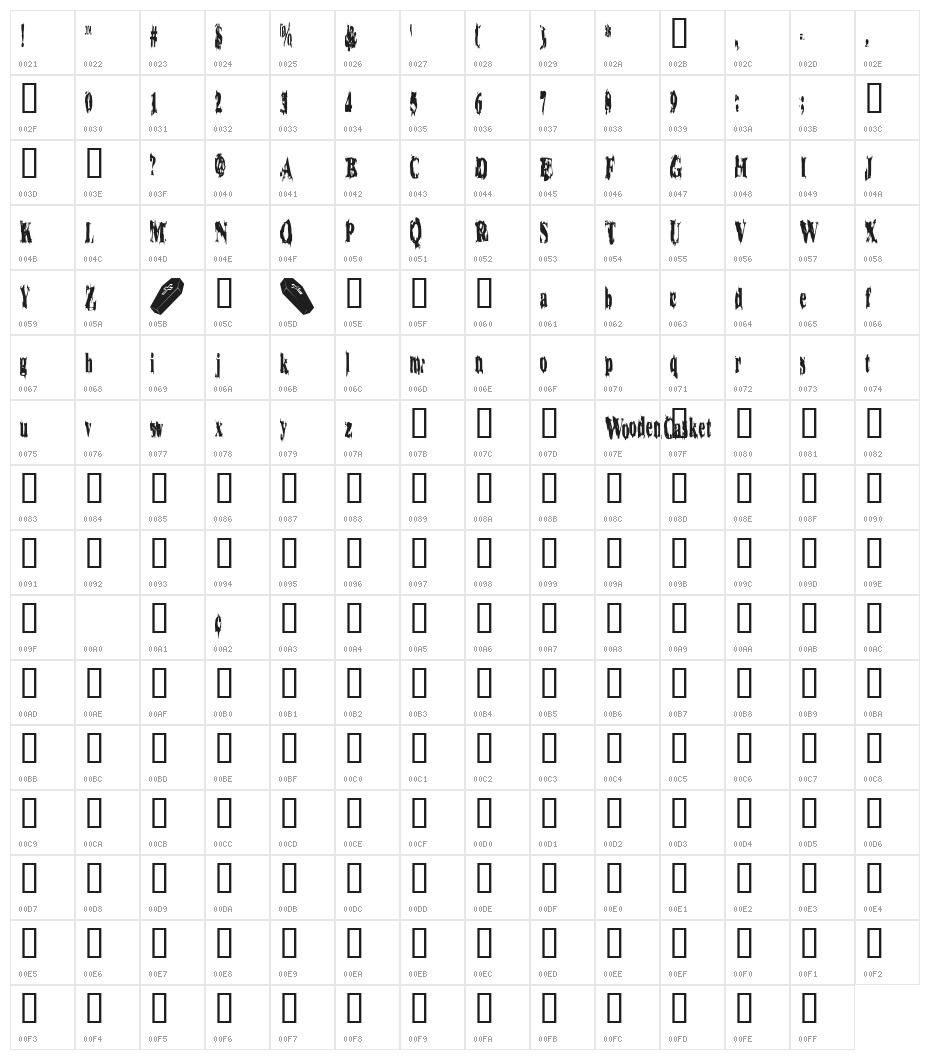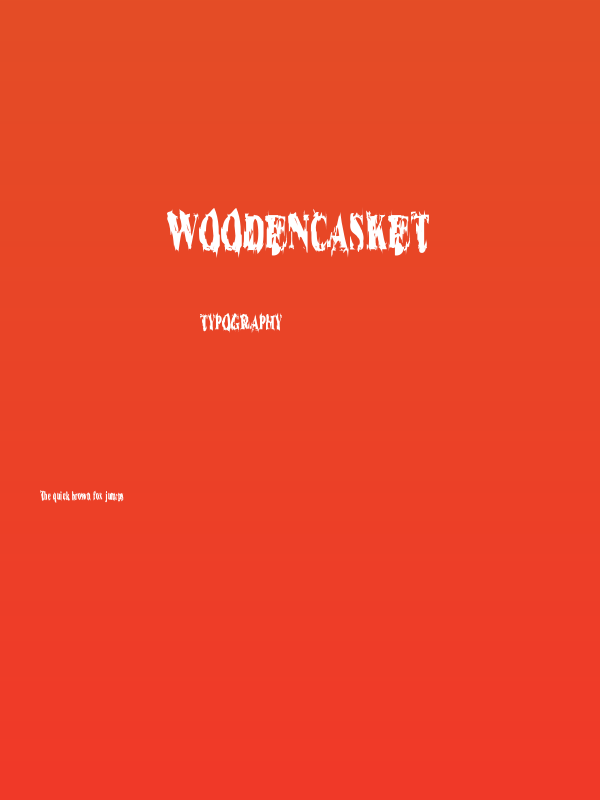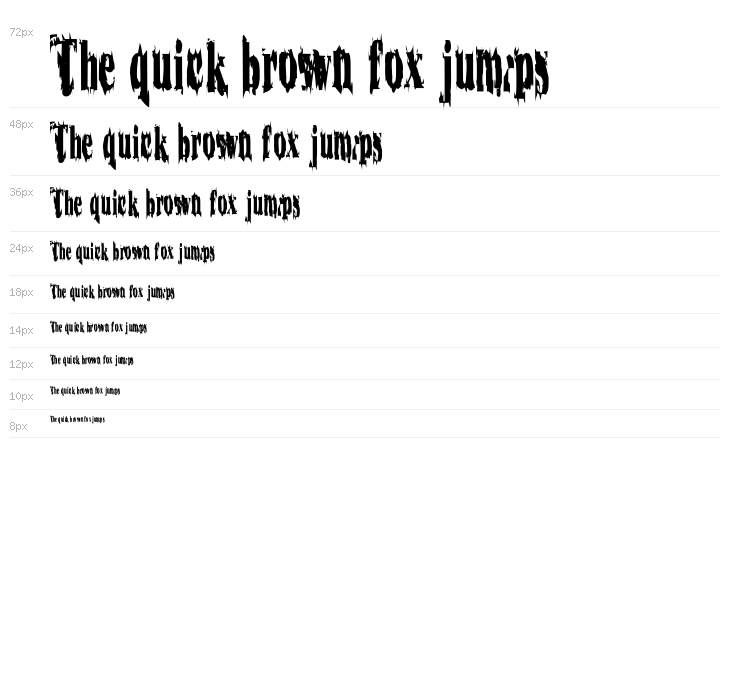
WoodenCasket Font
WoodenCasket Description
This font features a highly decorative and distressed style, reminiscent of jagged wood or thorny vines. The characters are bold and have an irregular, edgy appearance, with sharp angles and uneven edges that create a sense of chaos and intensity. The uppercase and lowercase letters maintain a consistent theme, with each character appearing as if it has been carved or eroded over time. The numbers and special characters follow the same rugged design, making the font suitable for projects that require a dramatic and eye-catching aesthetic.
| Use Case | Headlines, Posters, Themed Events |
| Proposed Projects | Ideal for horror-themed posters, Halloween invitations, or any design requiring a dramatic, edgy look. |